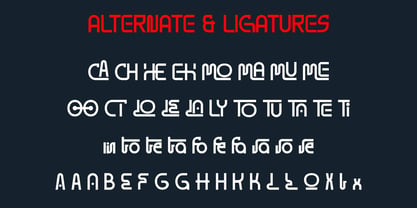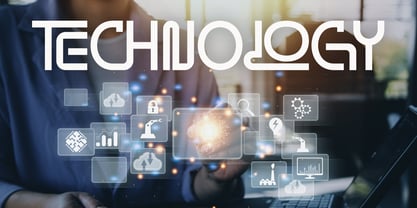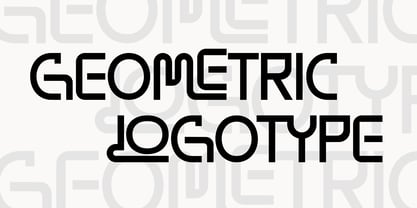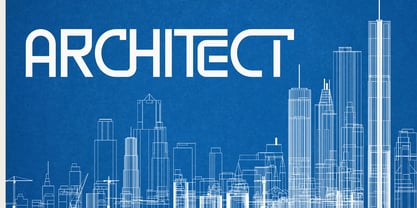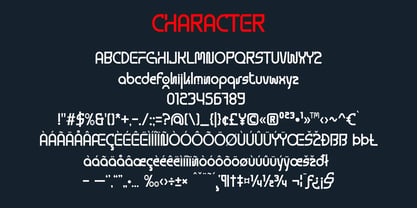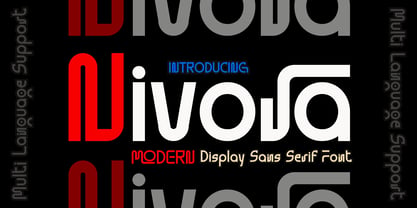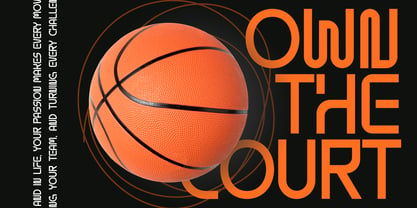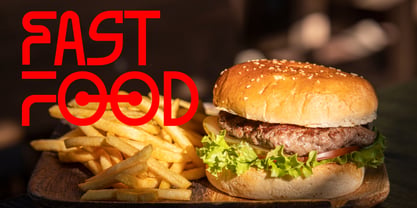
Nivora is a geometric logo sans serif font designed to balance playfulness with authenticity. Featuring clean structures, smooth curves, and distinctive proportions, it works beautifully across digital and print projects. Perfect for logos, branding, blog headers, advertisements, invitations, greeting cards, planners, photo albums, decorations, and modern visual identities. Add Nivora to your designs and let your creativity stand out with confidence.
Nivora